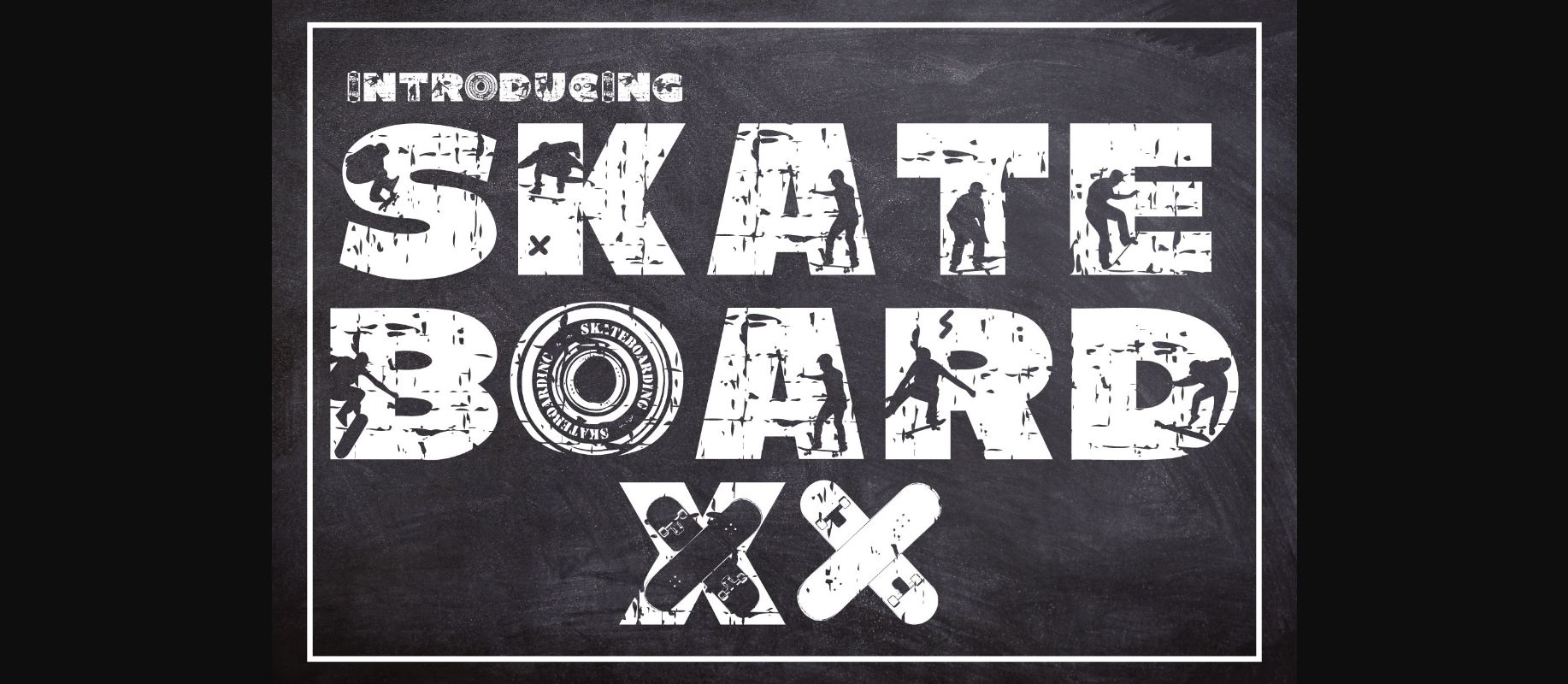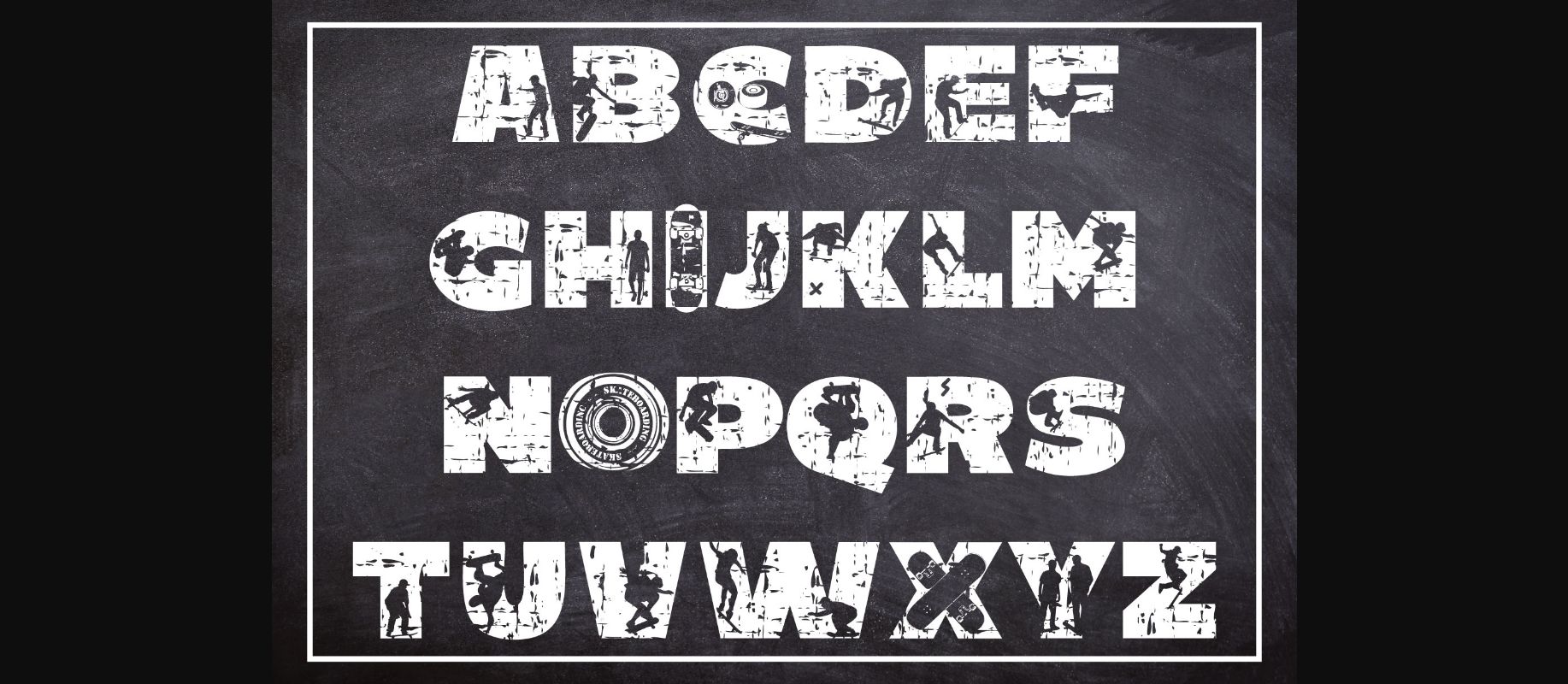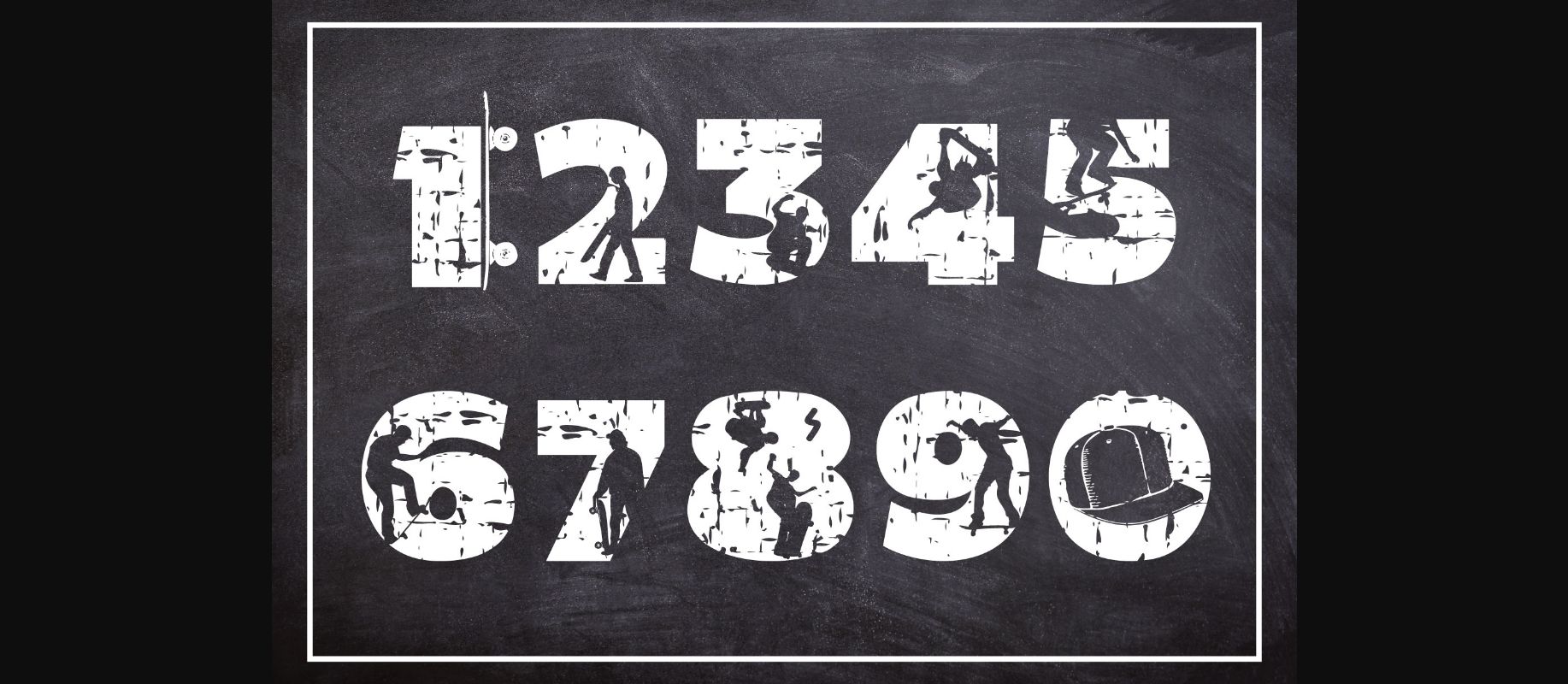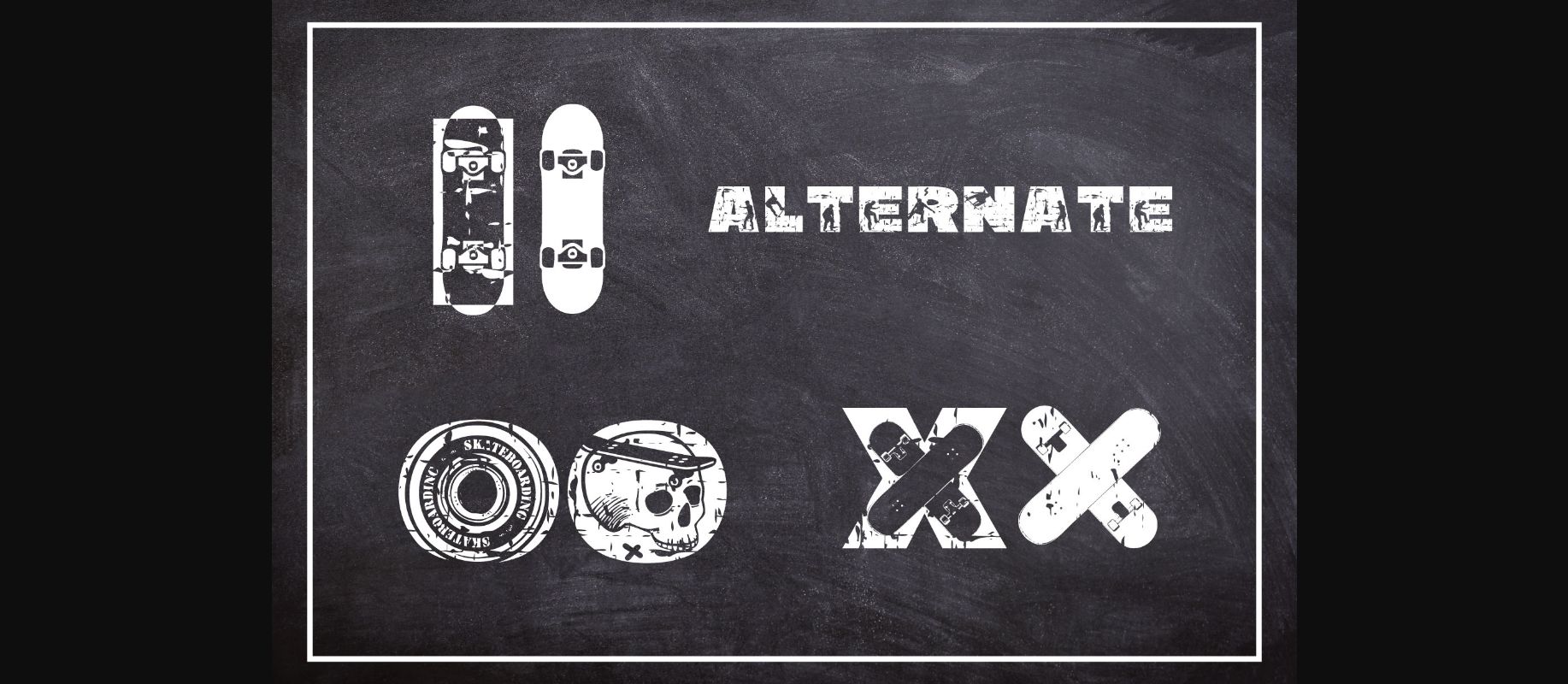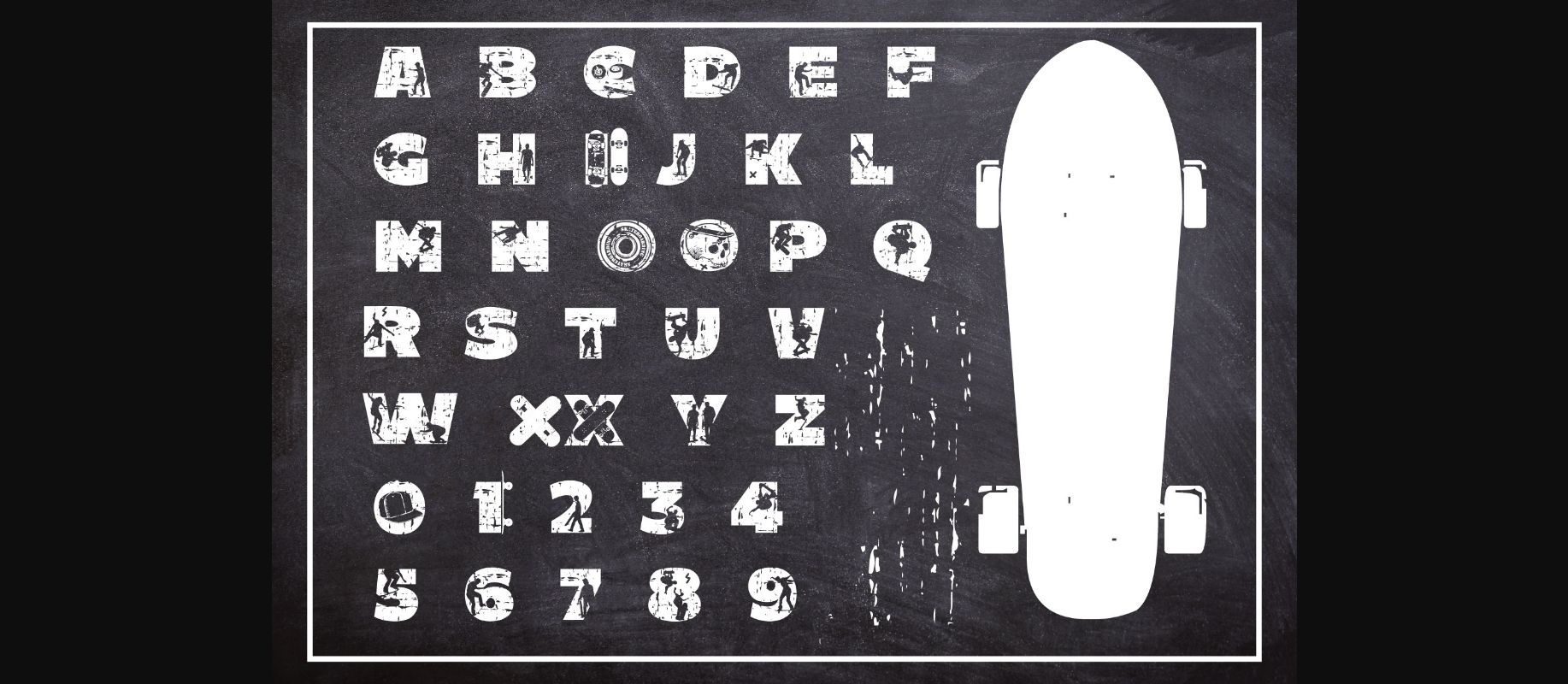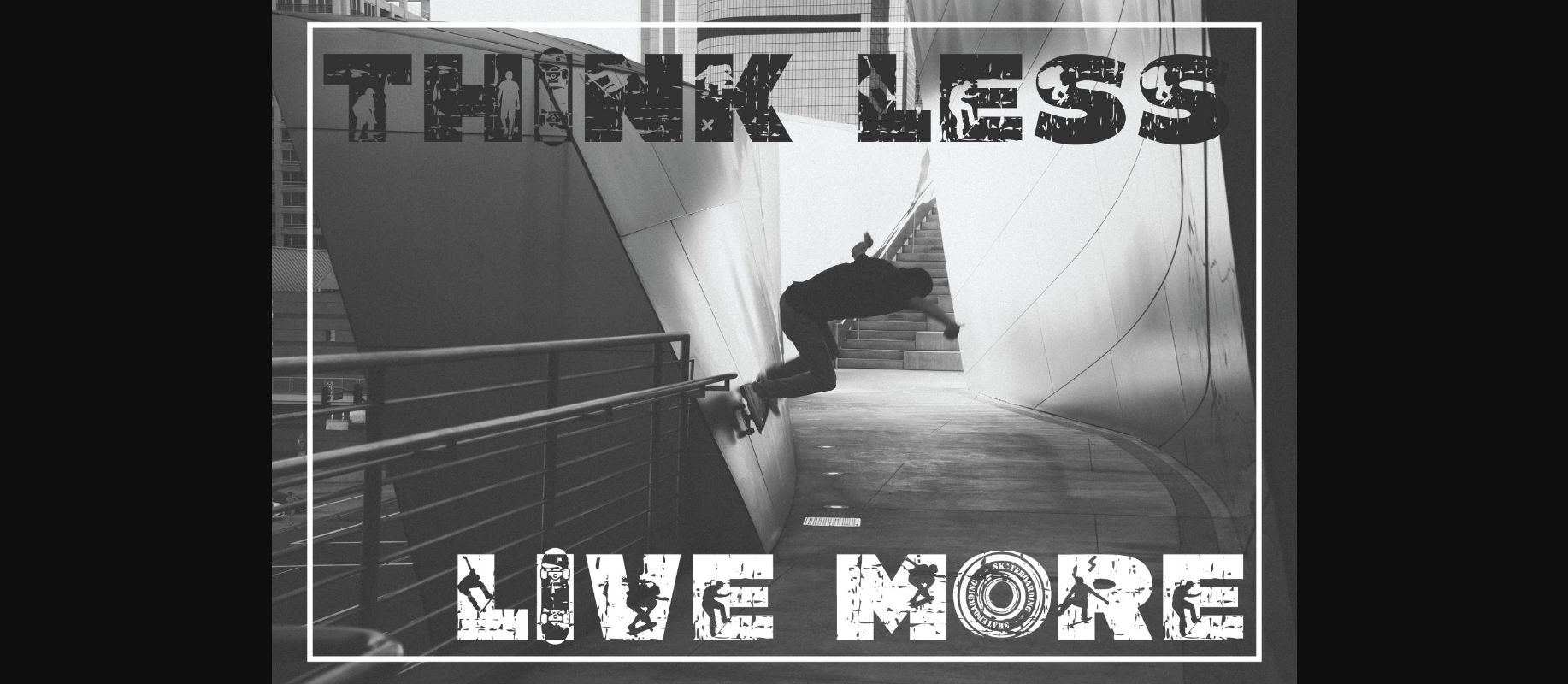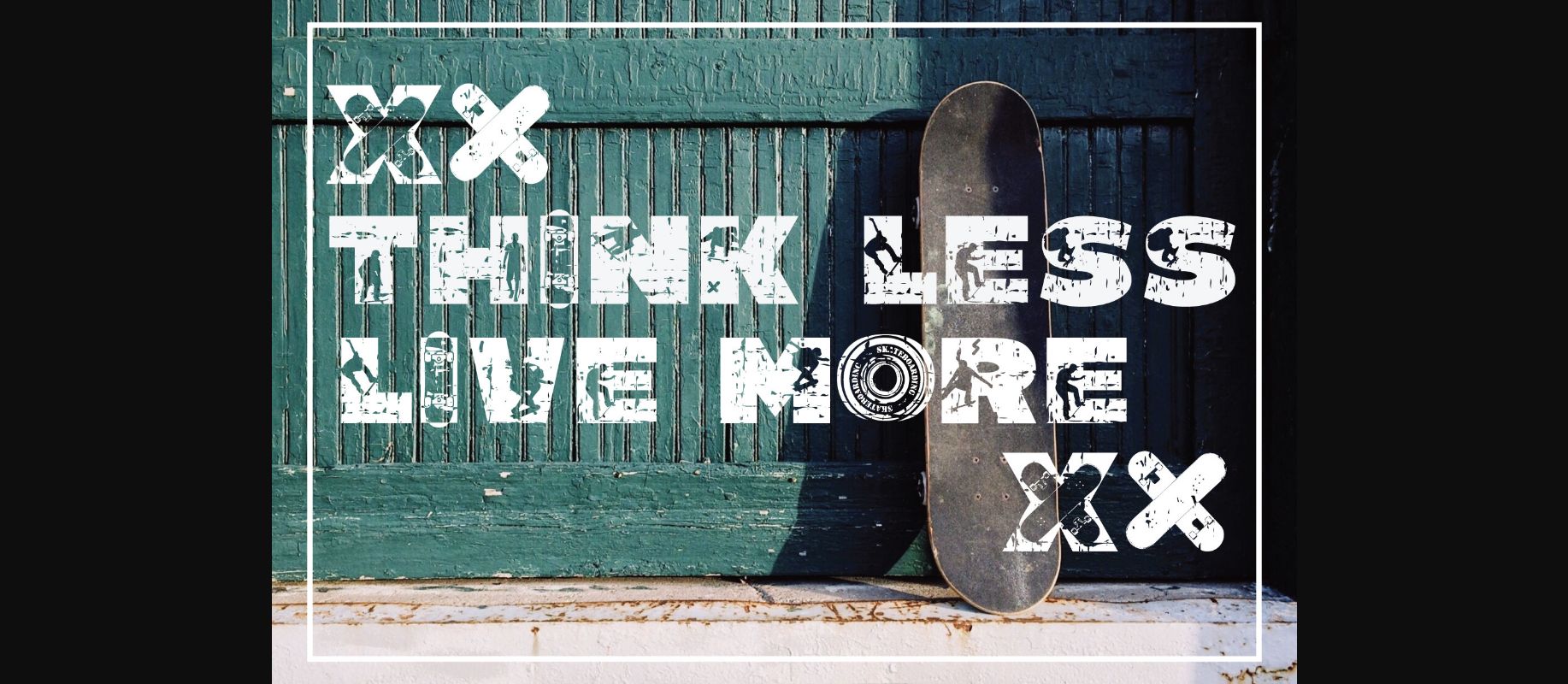
Skateboard XX Font
About Skateboard XX Font
Make your designs stand out with Skateboard XX, a stylish and unique decorative font. It will look stunning on posters, thank you cards, quotes, greeting cards, logos, business cards and every other design which needs a creative touch.